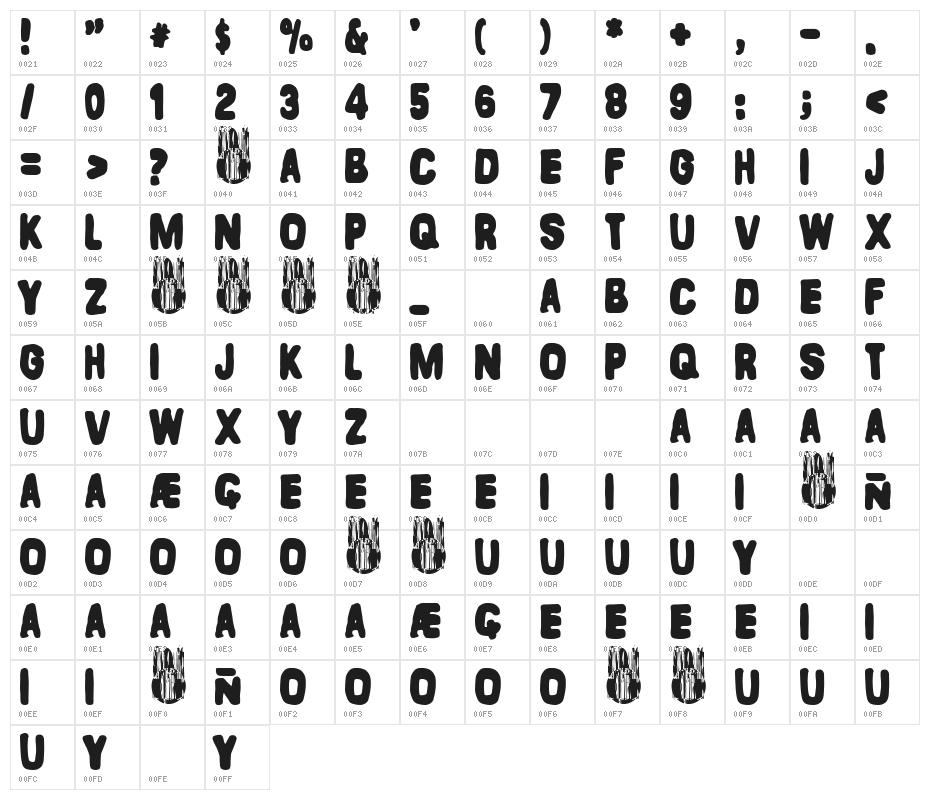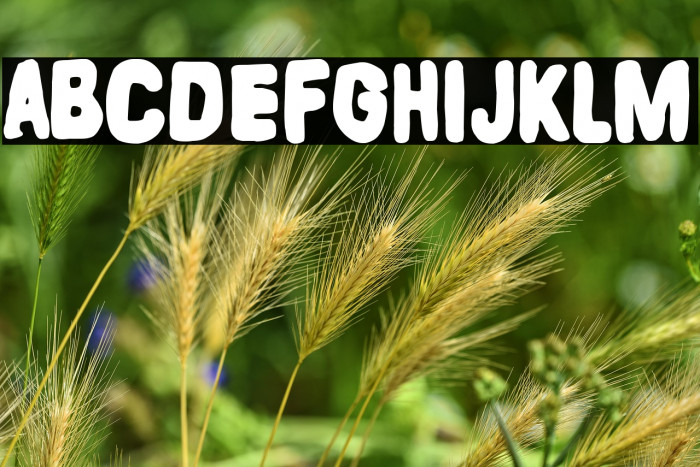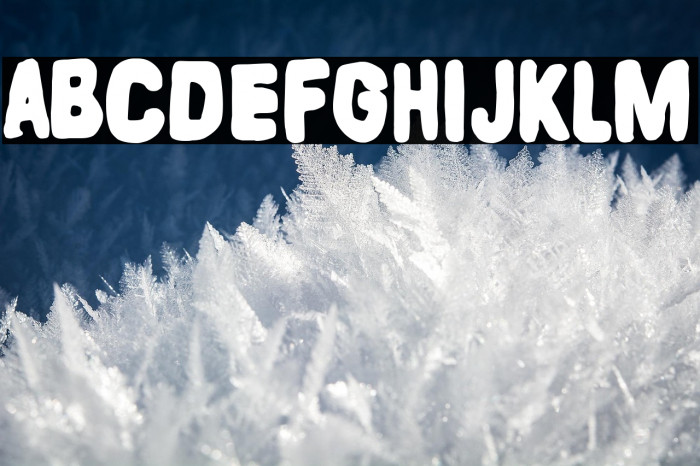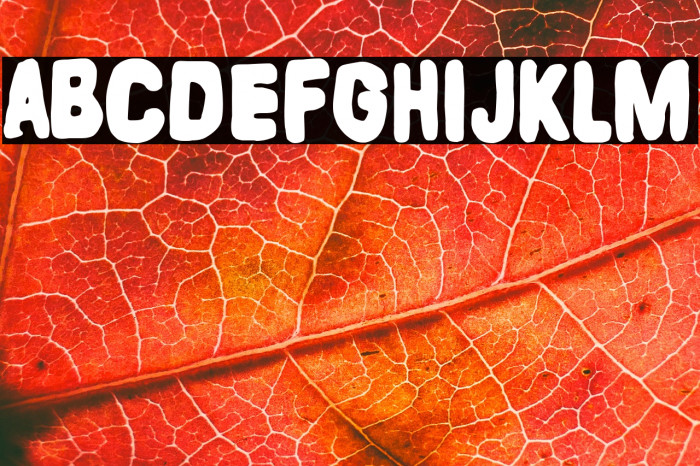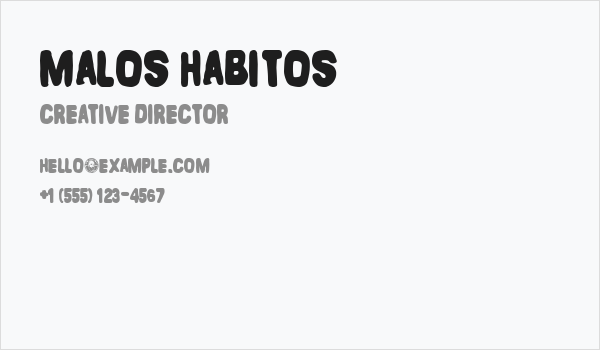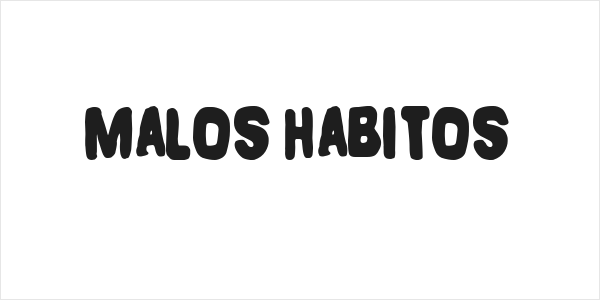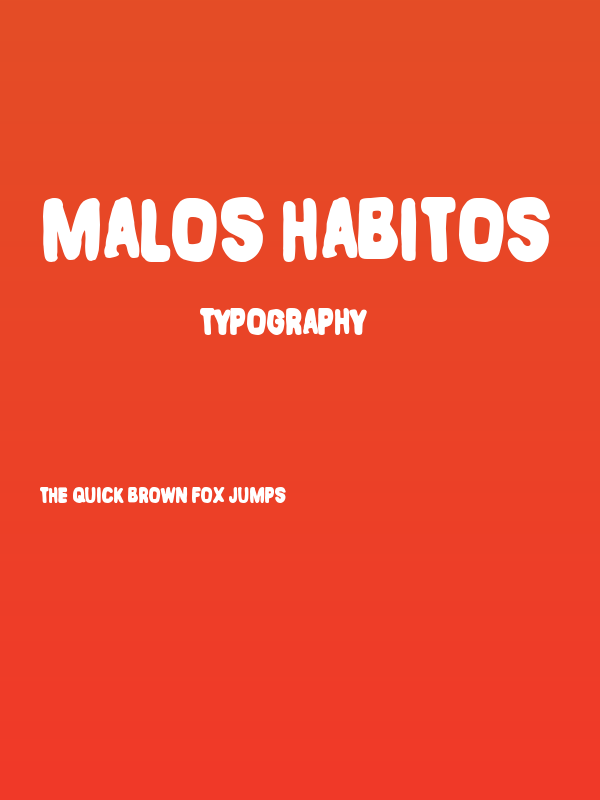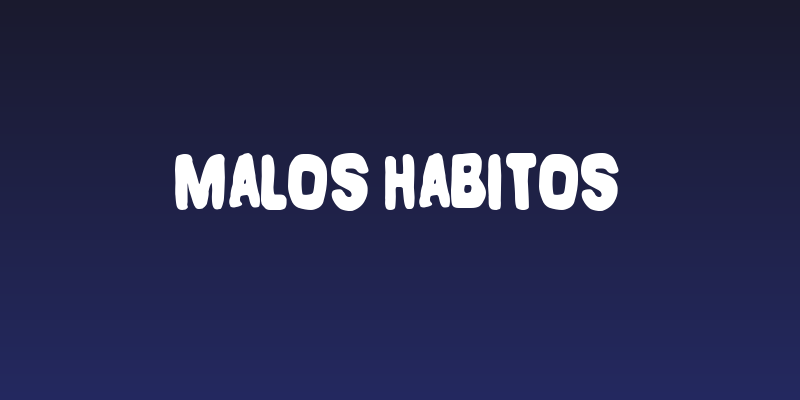
Malos Habitos Font
Malos Habitos Description
This font features bold, rounded characters with a playful and informal style. The letters are thick and have a slightly irregular shape, giving them a hand-drawn appearance. The uppercase and lowercase letters maintain a consistent weight, contributing to a cohesive look. The numbers and special characters follow the same design principles, ensuring uniformity across all glyphs. The overall aesthetic is casual and friendly, making it suitable for projects that aim to convey a sense of fun and approachability.
| Overall Style | Playful, Casual |
| Proposed Projects | Ideal for children's books, playful branding, casual invitations, and creative posters. |